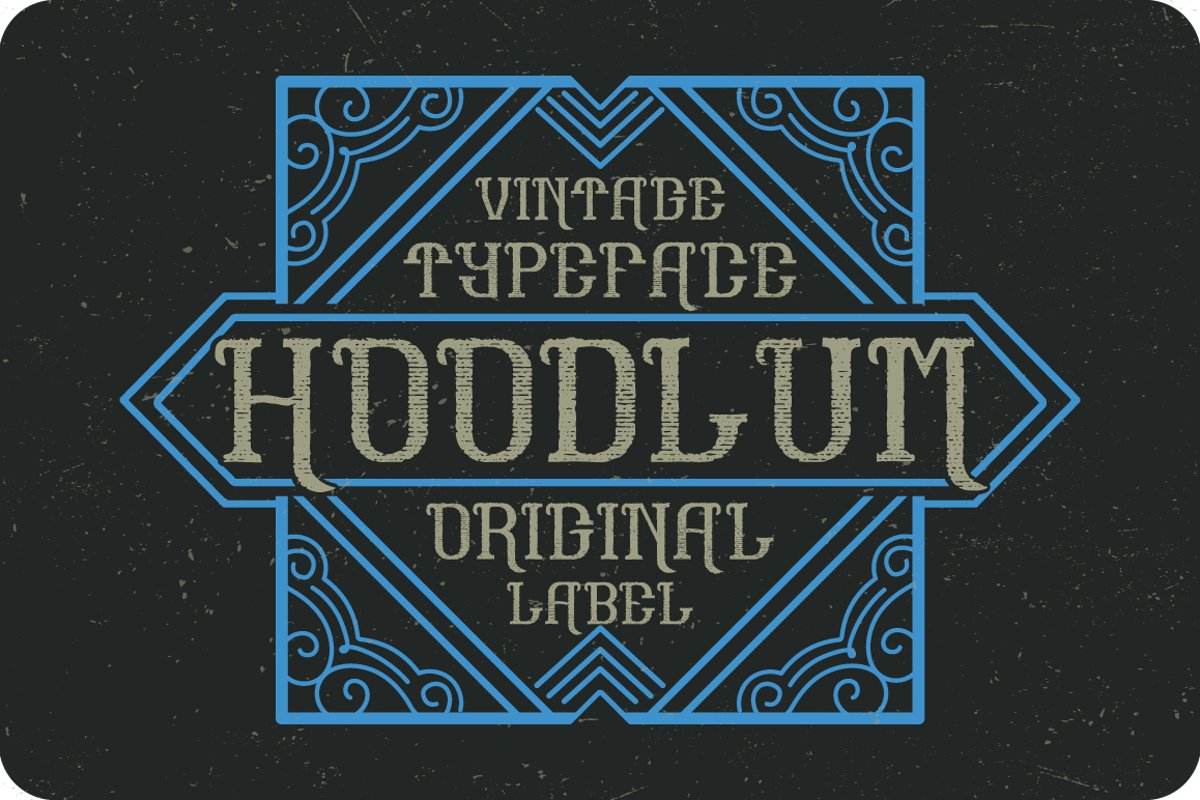
Hoodlum label font
Introducing a vintage label typeface named "Hoodlum". It's made in strong and vintage label style. Typeface looks great on any label designs and t-shirts.
• You can mix color of base font, light and shadow effect (look at 3rd screenshot)